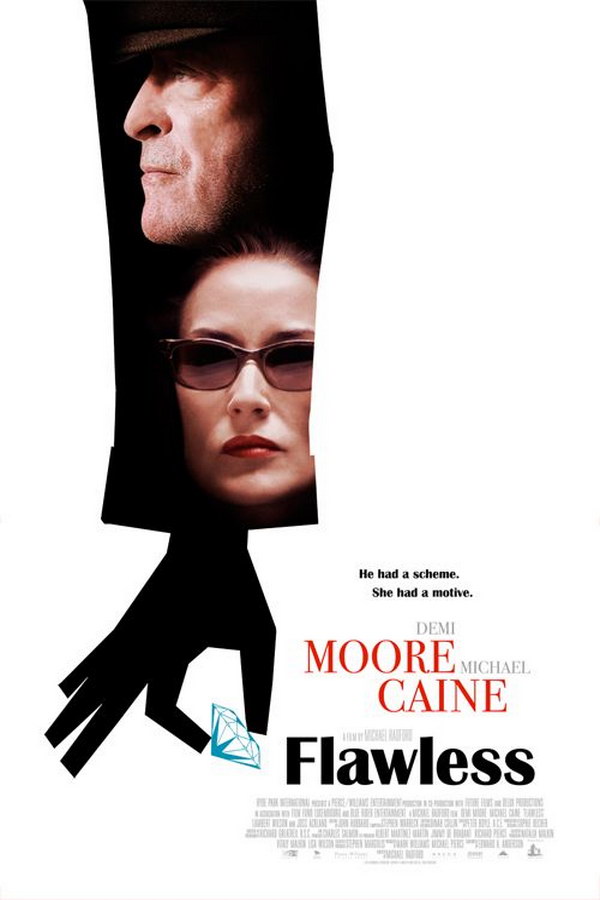
Flawless Font
Fonts in UseFlawless is a captivating thriller that follows a skilled thief and a retired janitor as they join forces to execute an elaborate diamond heist in the midst of a bustling city, facing unexpected challenges and forming an unlikely bond along the way.
The movie title "Flawless" is likely presented in Britannic Bold, a sans serif font known for its vertical axis and distinct stroke contrast. This commercial font can be further explored here.